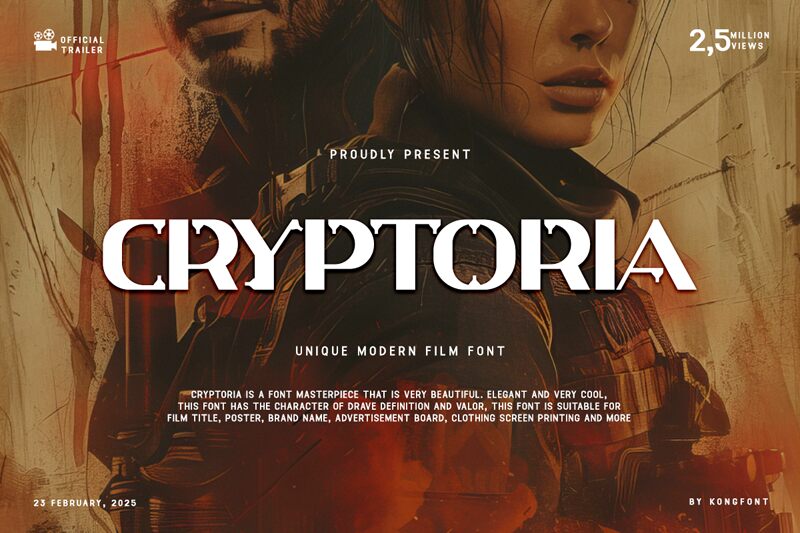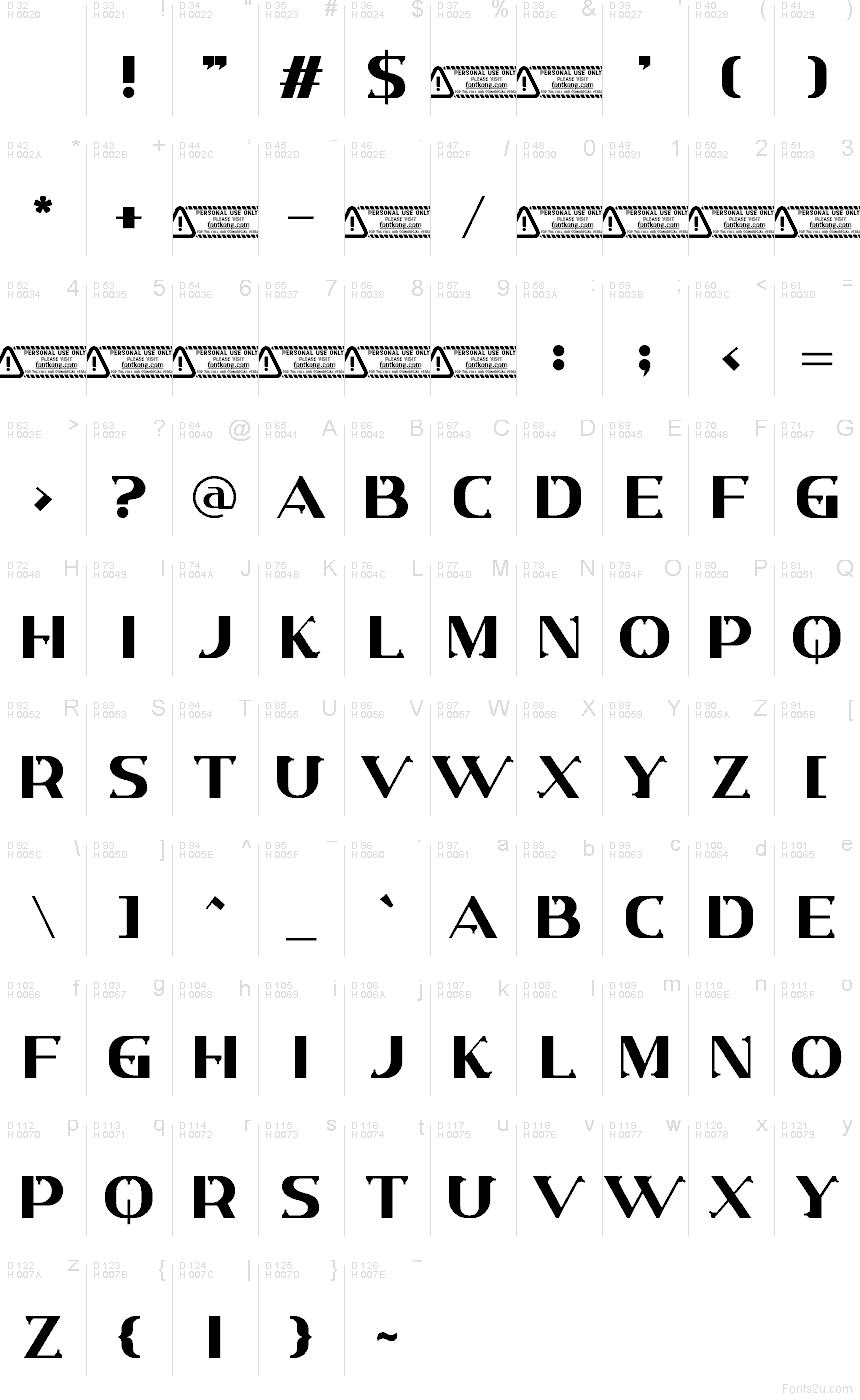
Cryptoria font by Kong Font is a free decorative display typeface that carves its letters out of solid black shapes, leaving sharp wedges and chiseled gaps like secret symbols cut into stone. Its bold, blocky forms feel both geometric and arcane, with tight spacing that makes words lock together like a coded message. Angular strokes and dramatic cuts give each line of text a dark, cinematic presence that’s hard to ignore.
Using Cryptoria, titles come off as mysterious, stylish, and a little dangerous—great for thriller book covers, horror movie posters, game logos, nightclub or bar branding, escape room graphics, and album art. This free font works best at large sizes where its sculpted interiors really show. Pair it with a clean, simple sans serif for body copy to keep the message readable while Cryptoria does the storytelling.